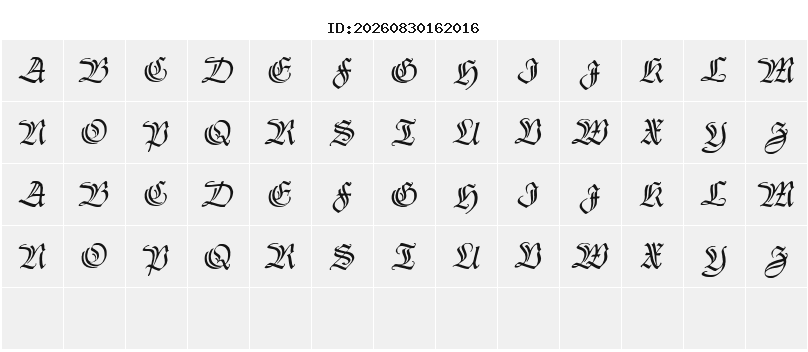
• Font Name: Thannhaeuser Zier
• Full Font Name: Thannhaeuser Zier
• Copyright: Copyright (c) Typographer Mediengestaltung, 2002. All rights reserved. Zierbuchstaben zur Thanhaeuser-Fraktur, geschaffen von Herbert Thannhauser, 1937/38. Digitalisiert durch Dieter Steffmann, Kreuztal.
• Designer: Dieter Steffmann
About Thannhaeuser Zier.ttf